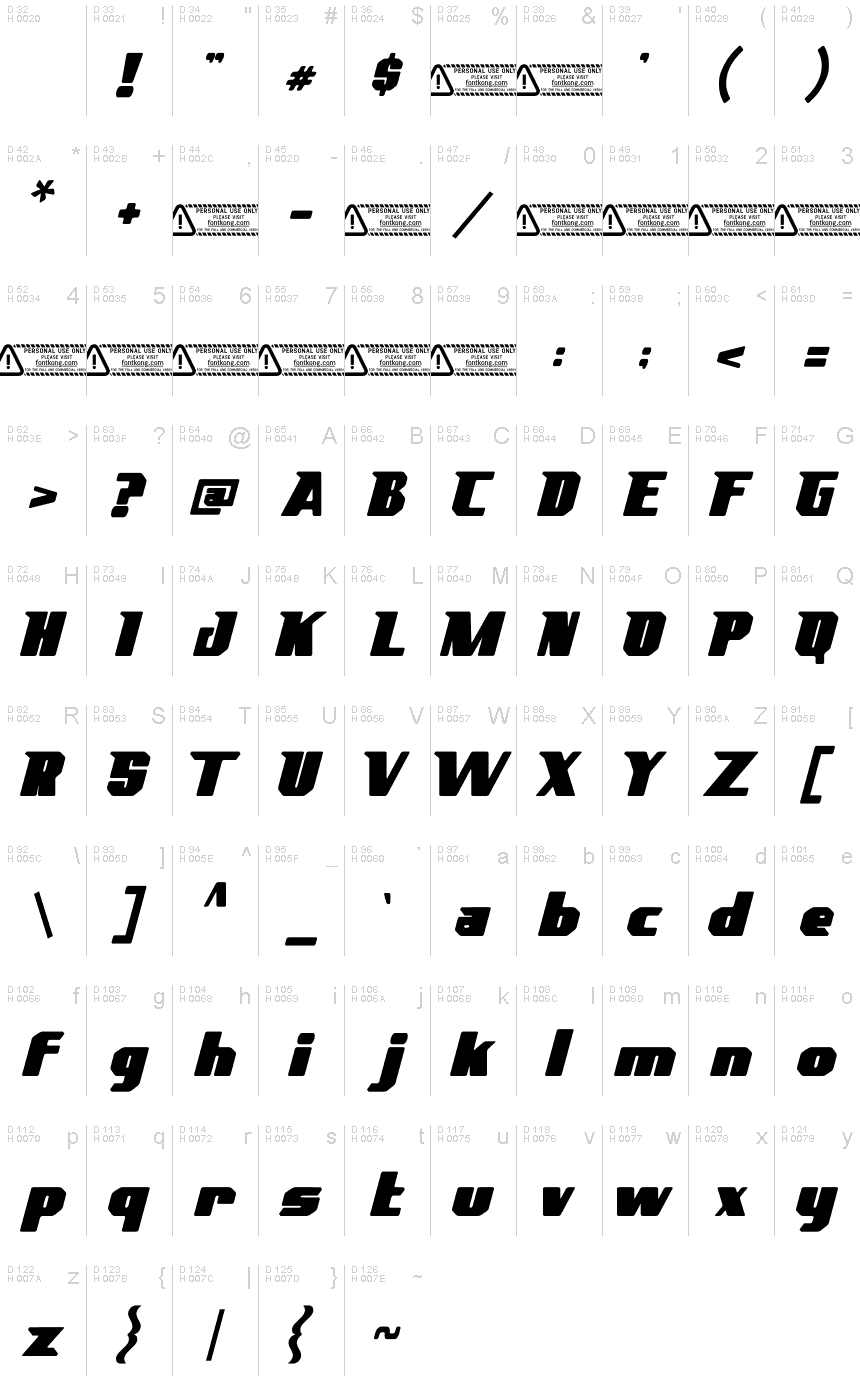
Hatcfast
Hatcfast emerges from the creative vision of Kong Font, driving a distinct path in the realm of display typefaces. With its techno style and extra-bold weight, this font embodies the kinetic energy and precision of high-speed automotive pursuits. Its semi-expanded width projects a commanding presence, making it an ideal choice for titles that demand attention without unnecessary embellishments.
Crafted to fuel the excitement of motor enthusiasts, Hatcfast Display Font mirrors the dynamic spirit of racing events and off-road adventures. The font’s clean lines and standard form ensure legibility at high speeds while capturing the essence of motion inherent to vehicle-centric designs. It's perfectly tuned for event branding where clarity meets adrenaline—whether it's for bold headlines or standout promotional materials. Hatcfast is not just a typeface; it's a visual throttle that accelerates any automotive-themed project to pole position.